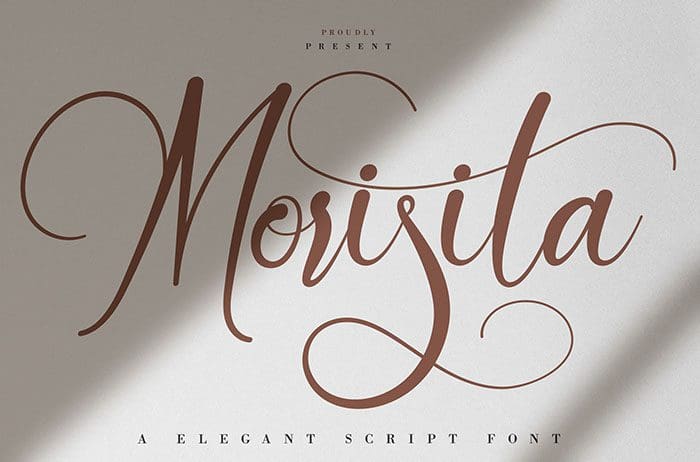
Morisita is a lovely and modern script font with a unique style. It will add a romantic touch to any crafting project! Thanks to Vunira Studio for sharing this font. Take a look at this portfolio for more of his stunning fonts.
Designed By : Vunira Studio